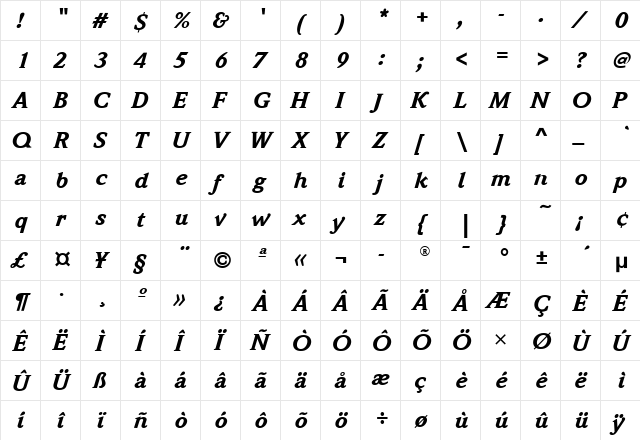
WeidemannMdITC Black Italic Font Preview
WeidemannMdITC Black Italic
Design Context for WeidemannMdITC Typeface
WeidemannMdITC offers clean, dependable letterforms without strong stylistic allegiance, making it a practical choice for designers who need flexibility. The dynamic lean of this cut emphasises speed and emphasis in any layout.
Pro Tip: Use WeidemannMdITC for emphasis, pull quotes, and subheadings where its slanted energy can add rhythm to the layout.